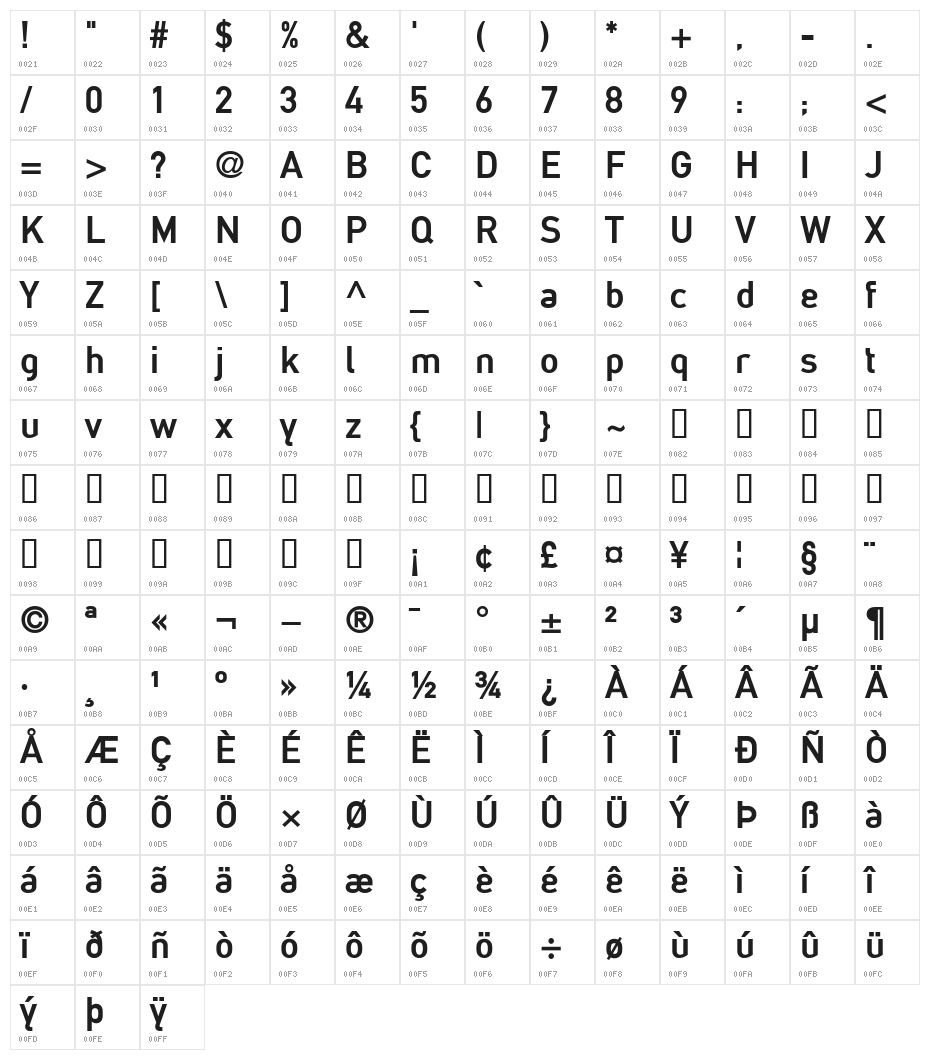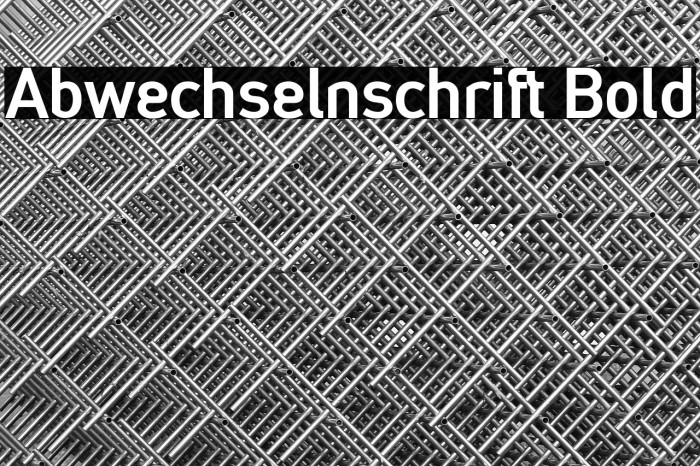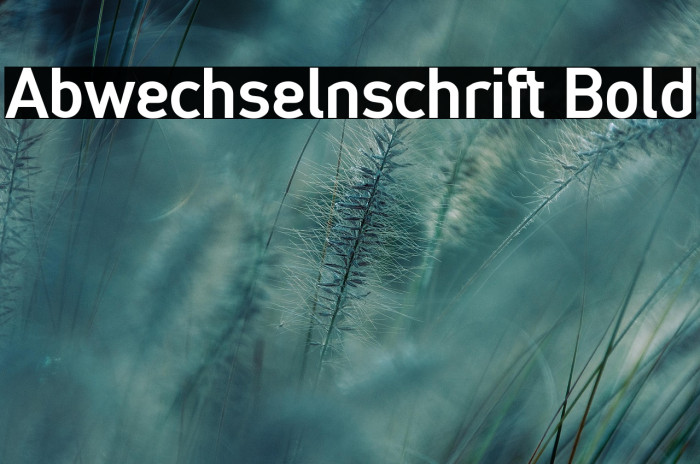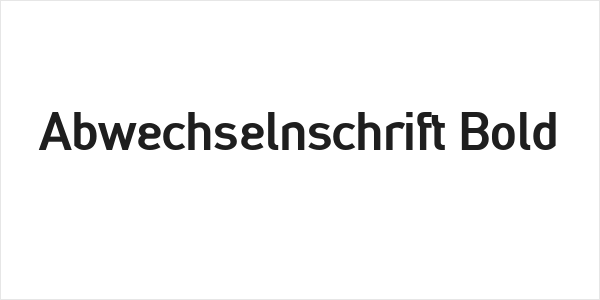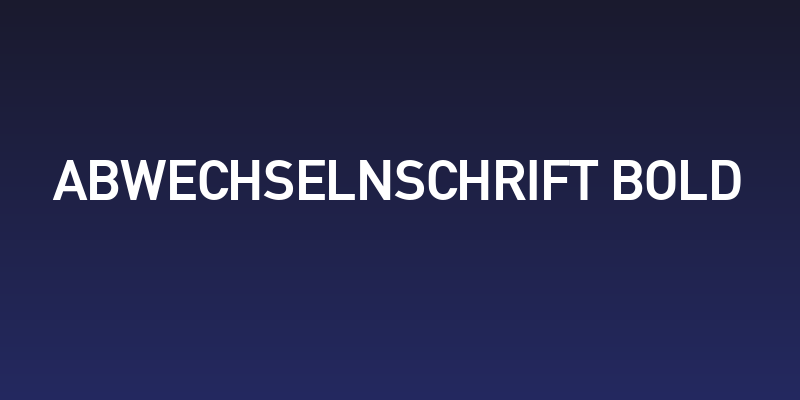
Abwechselnschrift Bold Font
Abwechselnschrift Bold Description
This font features a bold and modern sans-serif design, characterized by clean lines and a uniform stroke width. The uppercase and lowercase letters are well-proportioned, providing excellent readability. The numerals are clear and distinct, making them suitable for various applications. The special characters are designed with the same attention to detail, ensuring consistency across all glyphs. This font's simplicity and clarity make it versatile for both digital and print media.